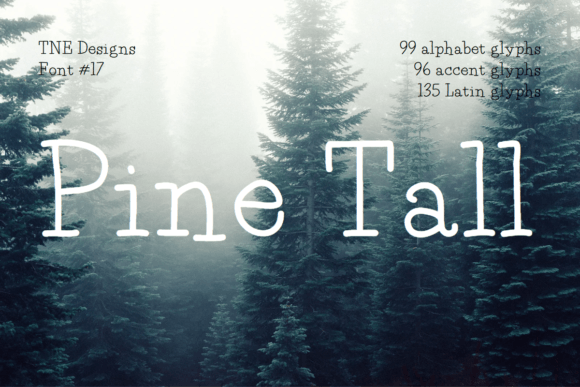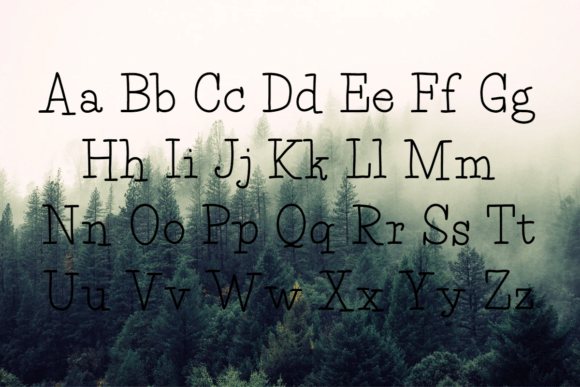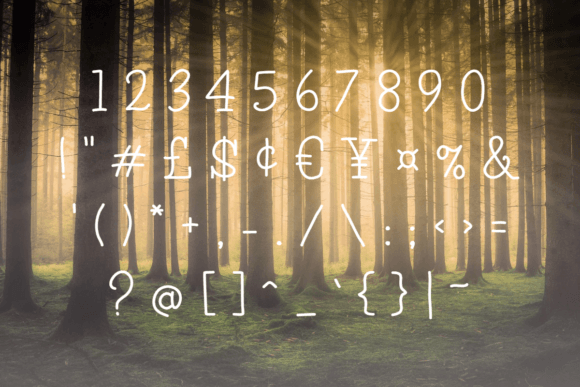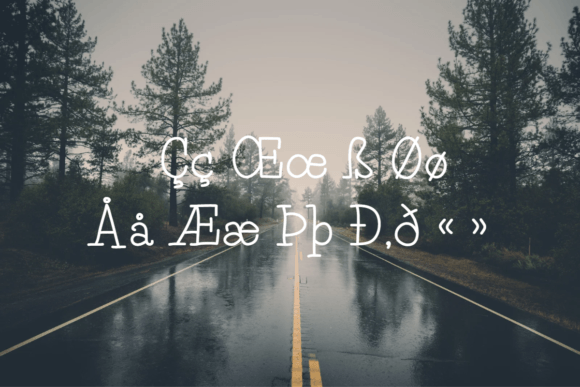
Pine Tall Font
About the Pine Tall Font
Make a bold statement with Pine Tall Font, a powerful and memorable font. Pine Tall is a chic and unique serif font with an indie vibe. Its tall, slender letters are perfectly imperfect, with a hand-drawn feel that gives it a charming and natural quality. This font is perfect for adding a touch of character and personality to any project, from logos and branding to social media graphics and print materials.
Pine Tall’s charming imperfections make it ideal for headlines, short-form text in logos and branding materials, and eye-catching social media posts. It adds a touch of handcrafted authenticity to packaging design, particularly for products with a natural or artisanal feel. However, its slender letterforms and irregular spacing are less suitable for body copy or lengthy paragraphs, impacting readability. Avoid using it for UI elements or situations requiring high legibility.
Pair Pine Tall with a clean sans-serif like Montserrat or Lato for a balanced and modern aesthetic, or try a playful script font such as Great Vibes for a more whimsical feel. A geometric sans-serif like Futura would provide a strong, contrasting counterpoint.
The overall personality of Pine Tall is best described as indie-chic and slightly whimsical; approachable yet sophisticated. It’s a font that conveys authenticity and a touch of handcrafted charm, making it perfect for brands seeking a unique, less corporate identity.
Pine Tall Font Usage Examples
Pine Tall Font Example